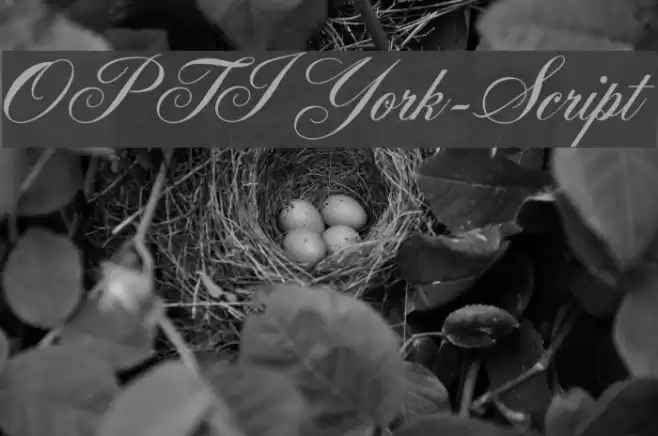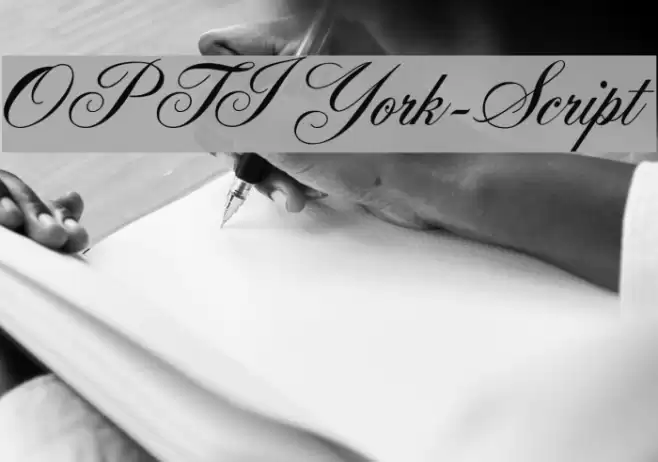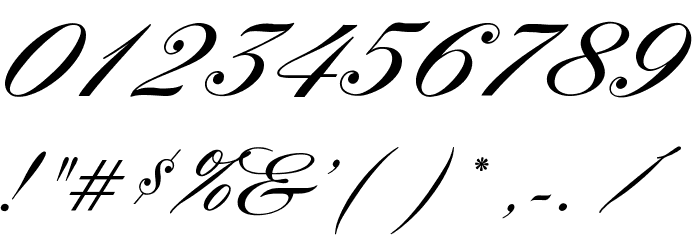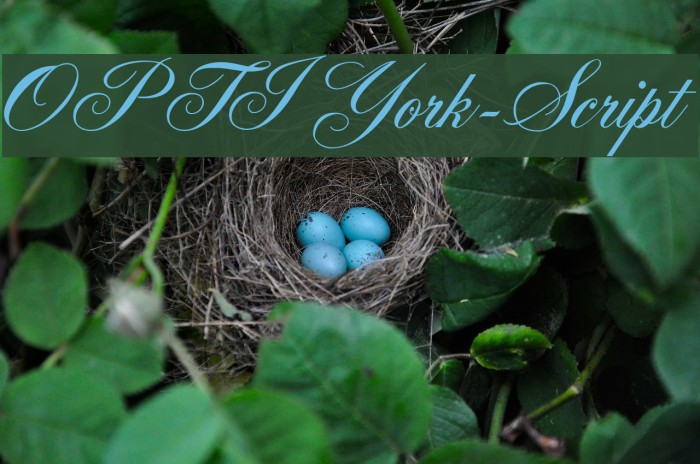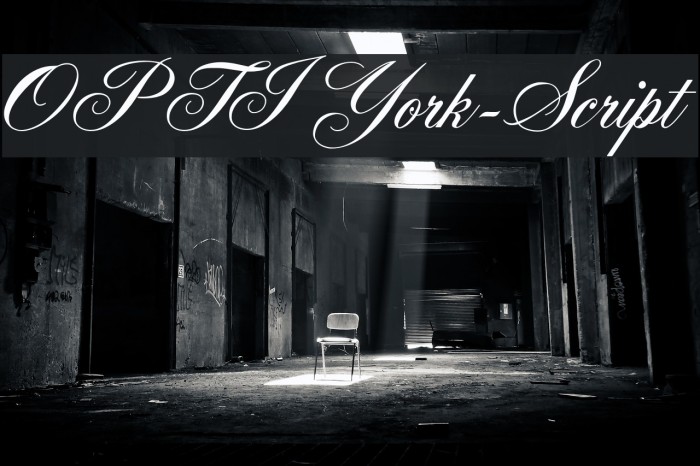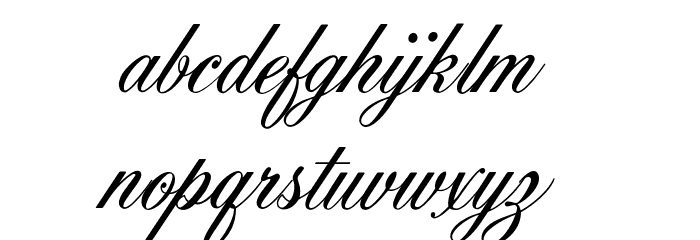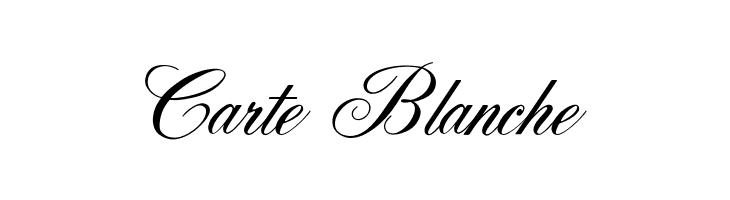
OPTIYork-Script Font
OPTIYork-Script Description
This elegant script font features flowing, cursive letterforms with a classic and sophisticated appearance. The uppercase letters are adorned with intricate loops and flourishes, giving them a decorative and ornate style. The lowercase letters maintain a smooth and connected flow, enhancing the script's readability while preserving its artistic flair. The numerals and special characters are designed with a consistent style, ensuring a harmonious look across all elements. This font exudes a sense of luxury and refinement, making it ideal for formal and decorative applications.
An elegant and ornate script font with flowing, cursive letterforms from Uncategorized fonts.
- Proposed Projects: Ideal for wedding invitations, elegant branding, formal event programs, and luxury product packaging.
- Overall Style: Classic
- Use Case: Logos, Invitations, Decorative text